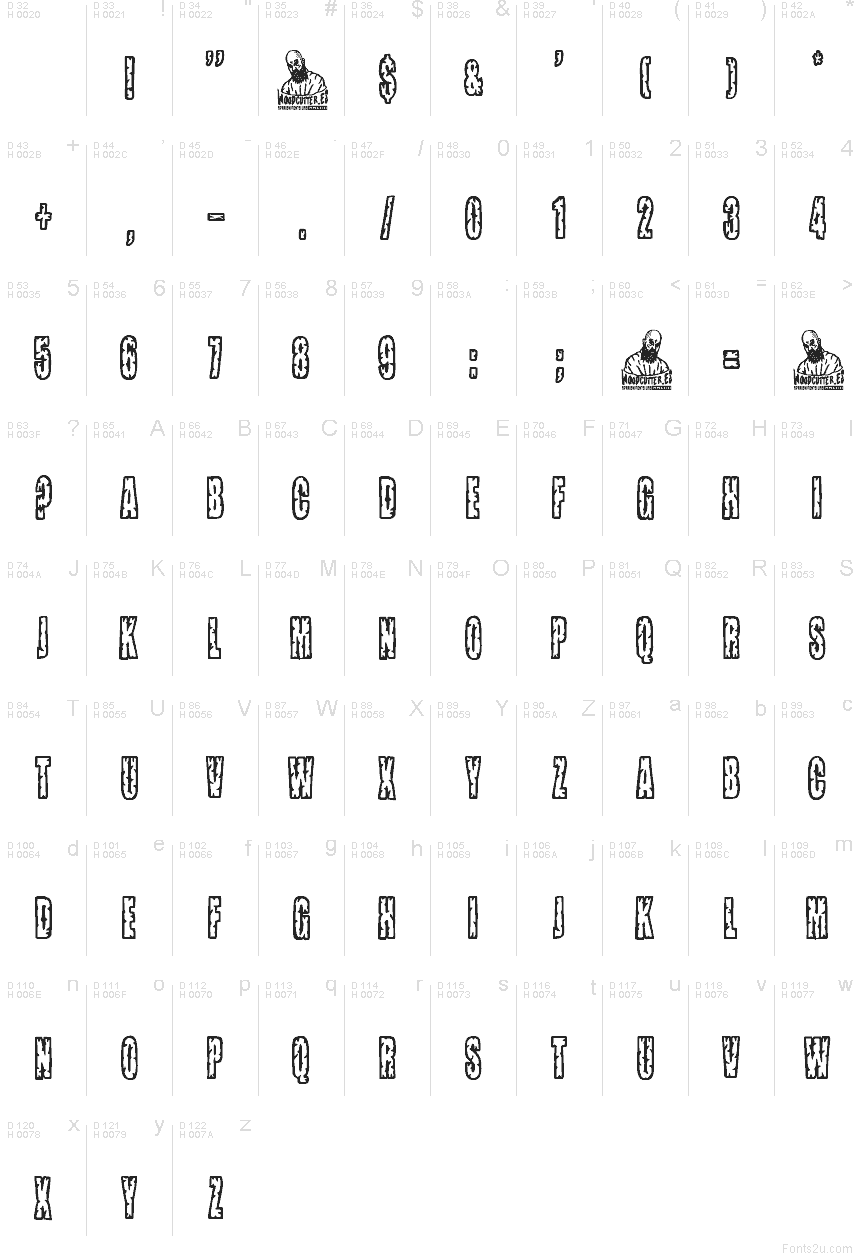
Indie Film Festival font by Woodcutter is a free decorative display typeface that looks ripped straight from a gritty midnight movie poster. Its tall, boxy letters are gnawed at the edges, with ink-blot streaks and torn-paper gaps that feel raw and handmade. The texture suggests scratched celluloid and photocopied flyers, giving titles an immediate underground, horror-festival energy without losing legibility at larger sizes.
Using Indie Film Festival, you can brand horror film marathons, haunted attractions, grindhouse-style posters, zines, escape-room graphics, or game splash screens with the same rough, nervous tension. This free font shines on bold titles and short phrases; keep body text in a clean sans serif so the distressed shapes stay punchy and readable. Try it oversized with tight tracking to create a heavy, claustrophobic headline that grabs attention from across the room.
Indie Film Festival